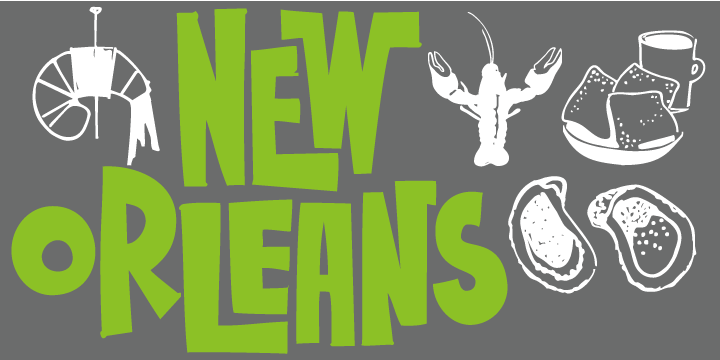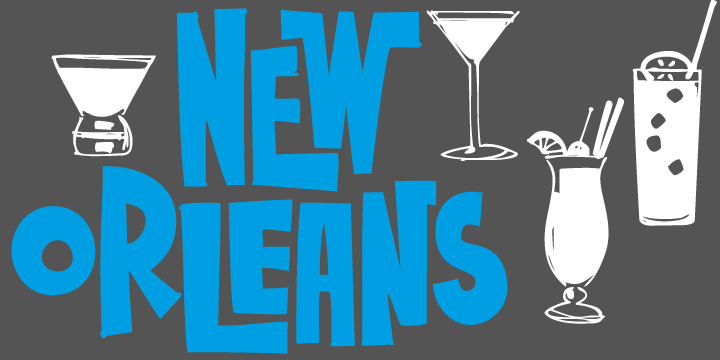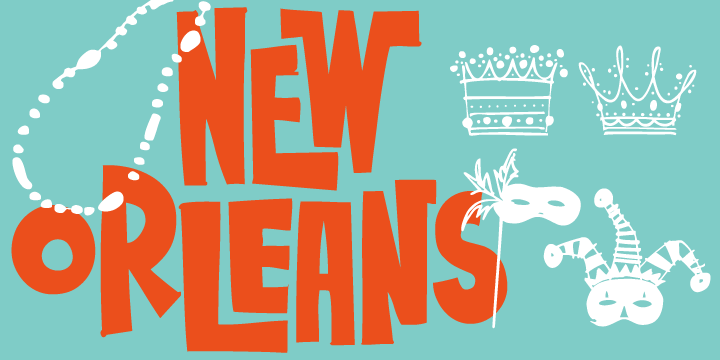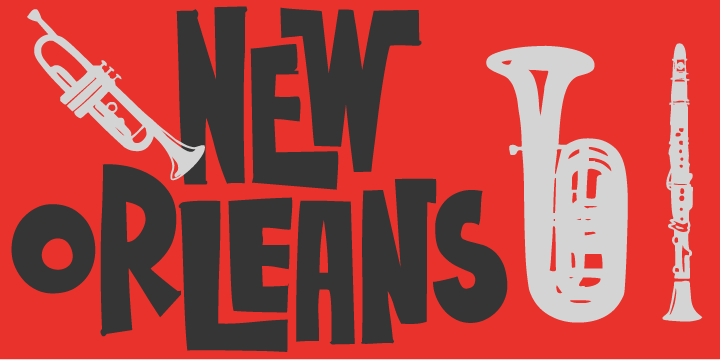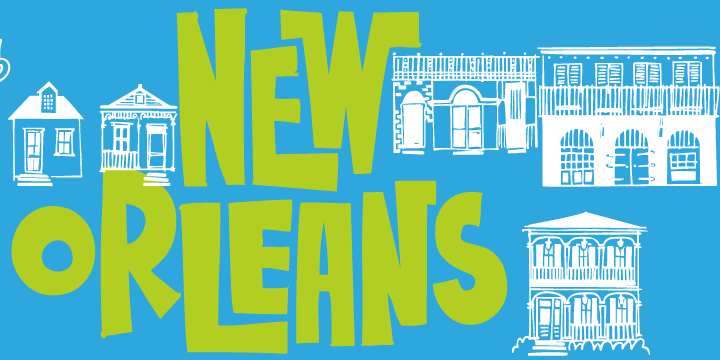
New Orlean Doodles is a dingbat font published by Outside the Line.
This font is almost as much fun as a trip to NOLA. 40 illustrations that cover Mardi Gras and food, with buildings, trolley, paddle wheel, pelican and musical instruments too. The instruments and adult beverages are universal. Plus a hand lettered New Orleans. A lot of variety in this collection.